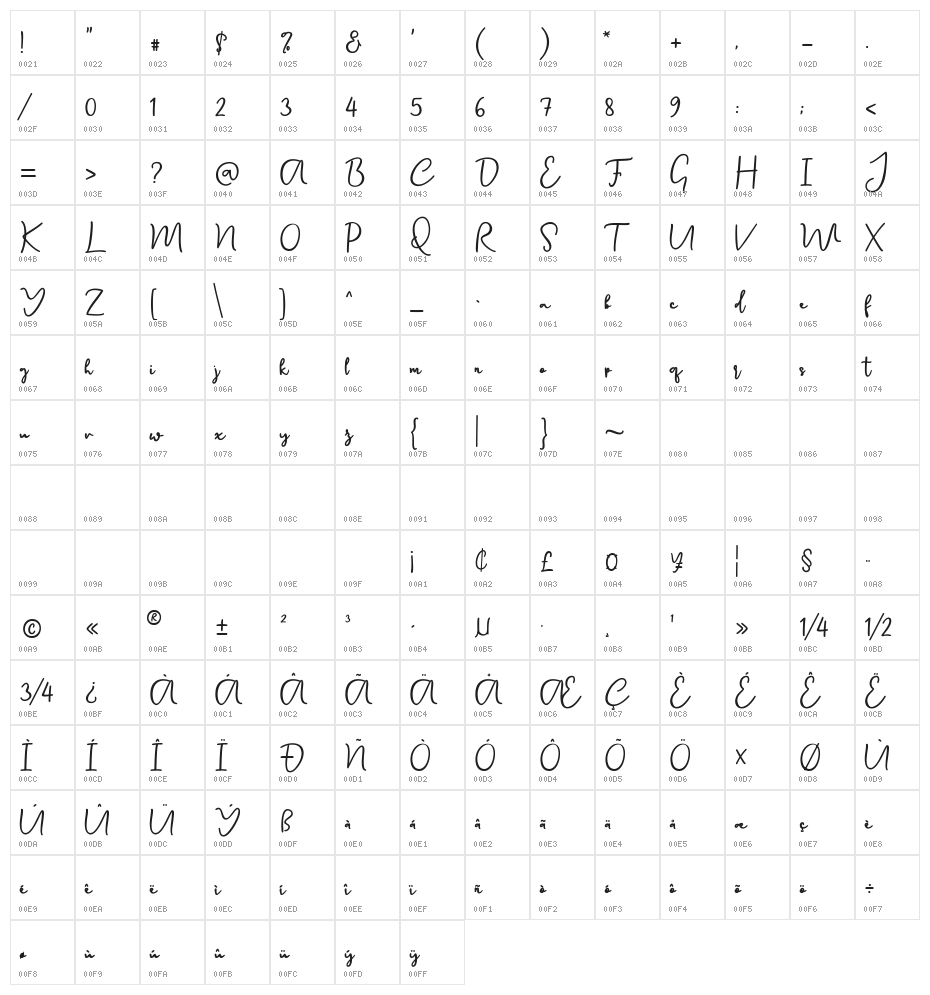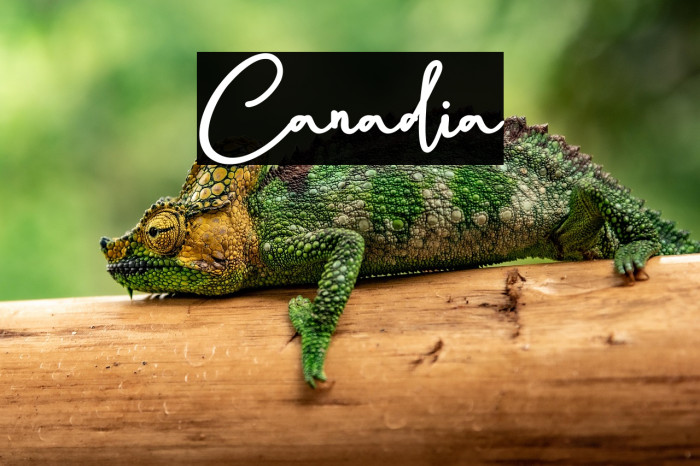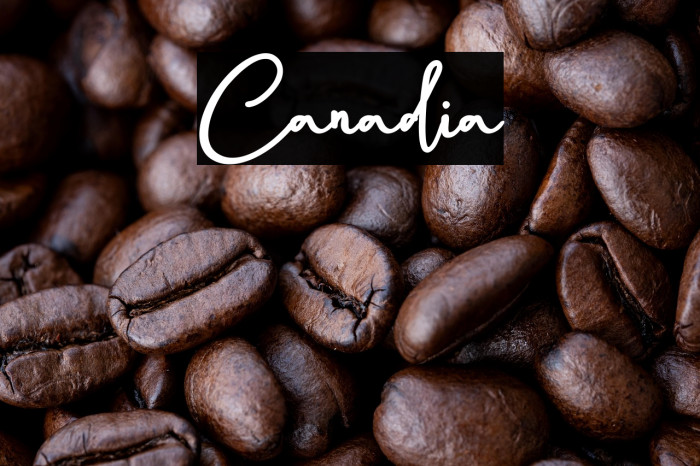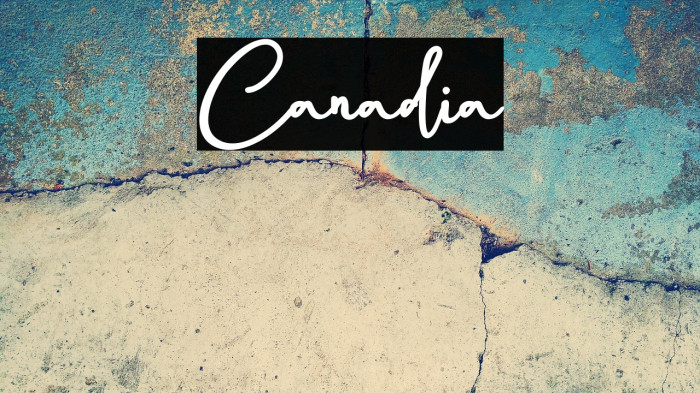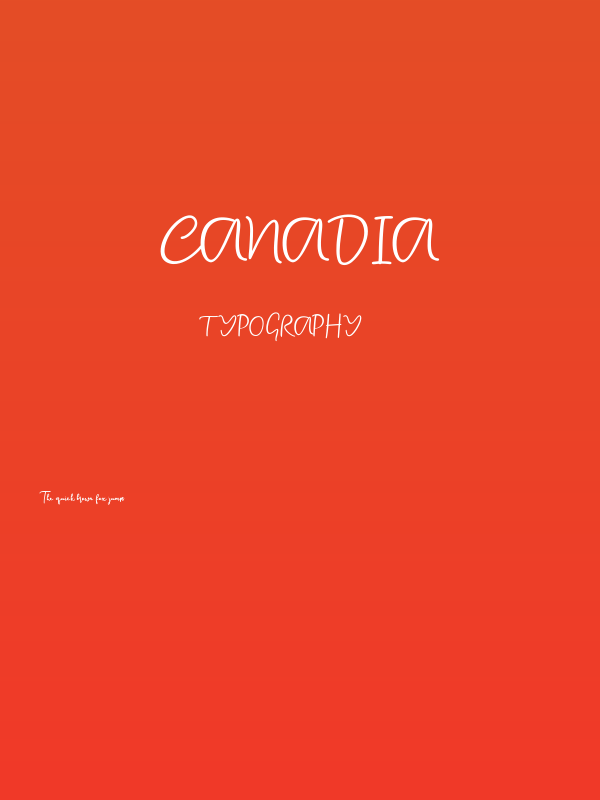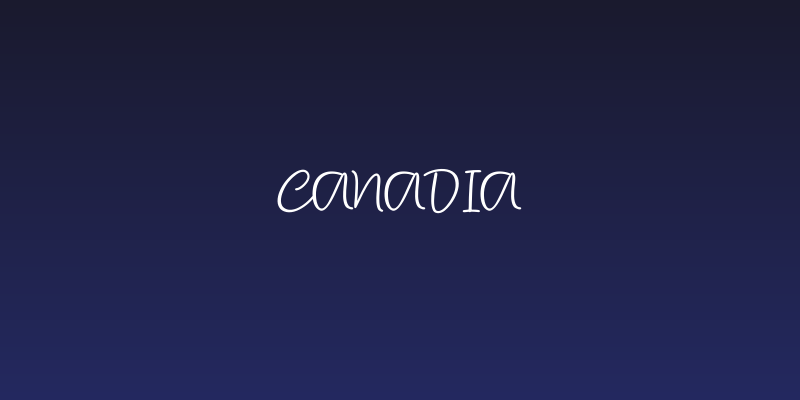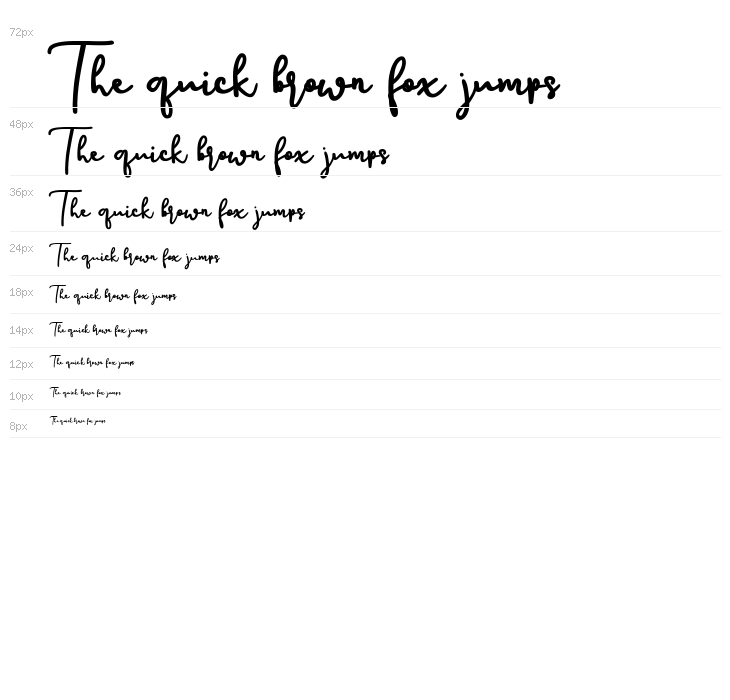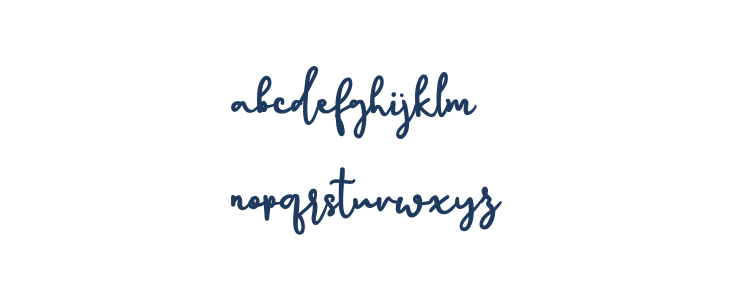
Canadia Font
Canadia Description
This font features a playful and flowing script style, characterized by its smooth, continuous strokes and elegant curves. The uppercase letters are tall and slightly narrow, with a whimsical flair that adds a touch of personality. The lowercase letters are more compact, maintaining the same fluidity and charm. The numbers are consistent with the overall style, offering a cohesive look. Special characters are well-integrated, ensuring versatility in various design contexts. The font's overall appearance is both modern and artistic, making it suitable for creative projects.
| Use Case | Logos, Invitations, Creative projects |
| Proposed Projects | Ideal for wedding invitations, greeting cards, branding, and creative design projects that require a personal touch. |